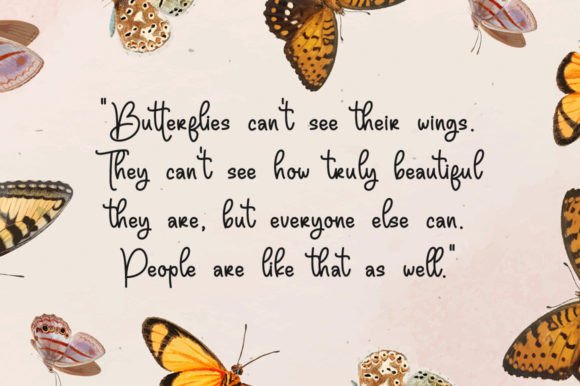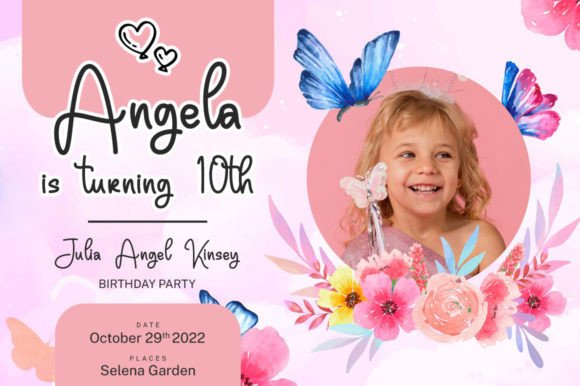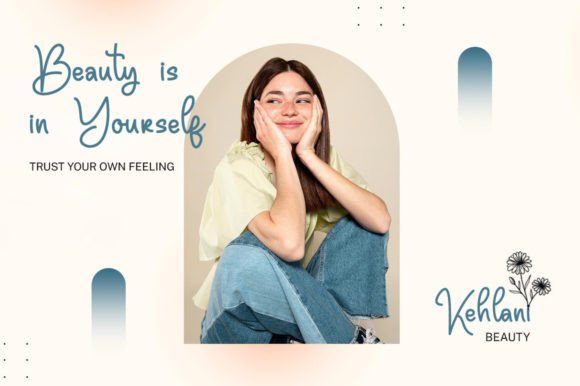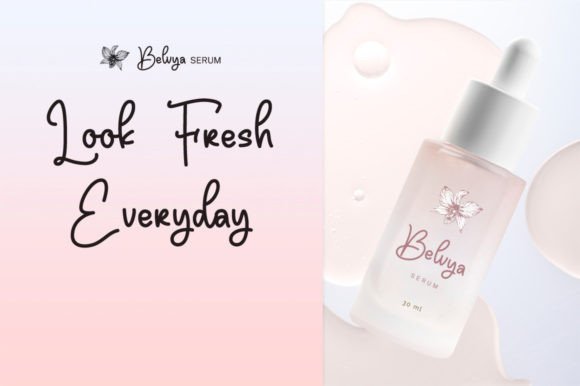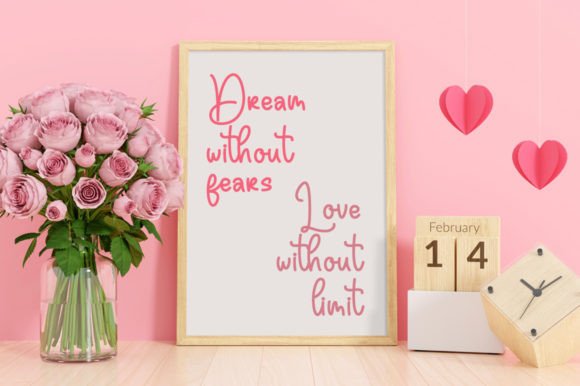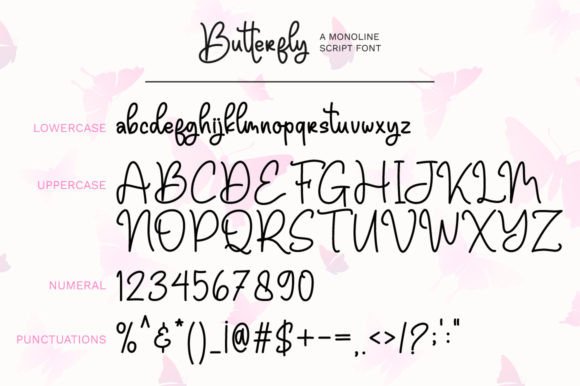
The Butterfly Effect: How a Delicate Font Can Transform Your Designs
I’ll never forget the time I was working on a wedding invitation project, and my client asked me to create a custom design that exuded elegance and romance. I spent hours scouring font libraries, but nothing seemed quite right. That’s when I stumbled upon the Butterfly font, and it was love at first sight! 💕
The delicate, handwritten curves and joyful vibe of Butterfly instantly captured the essence of what my client was looking for. I knew right then and there that I had found the perfect font for the job. In this article, I’ll share my experience with Butterfly, its features, and how to make the most of it in your designs.
A Personal Review of Butterfly Font
- 💖 Elegant and refined, yet playful and whimsical
- ✅ Perfect for wedding invitations, cards, and other romantic designs
- 🎉 Supports OpenType features, glyphs, and stylistic alternates
- 🖌️ Highly legible, even at smaller font sizes
While Butterfly is an amazing font, there are a few things to keep in mind:
- 🤔 Some characters may not work well in all contexts, such as all-caps headings
- ⚠️ Limited availability of certain special characters or diacritics
The Story Behind Butterfly
Butterfly was designed by a talented typographer who wanted to create a font that captured the essence of romance and whimsy. Inspired by the delicate wings of butterflies, the designer crafted a font that is both elegant and playful. With its intricate details and flowing curves, Butterfly is perfect for designs that require a touch of sophistication and charm.
Q: Is Butterfly suitable for body text?
A: While Butterfly is highly legible, it’s best suited for headings, titles, and short paragraphs. For longer body text, consider pairing it with a complementary sans-serif font.
Q: Does Butterfly support non-English characters?
A: Butterfly supports a range of characters, including some special characters and diacritics. However, it’s best to check the font’s character set to ensure it covers your specific language or script requirements.